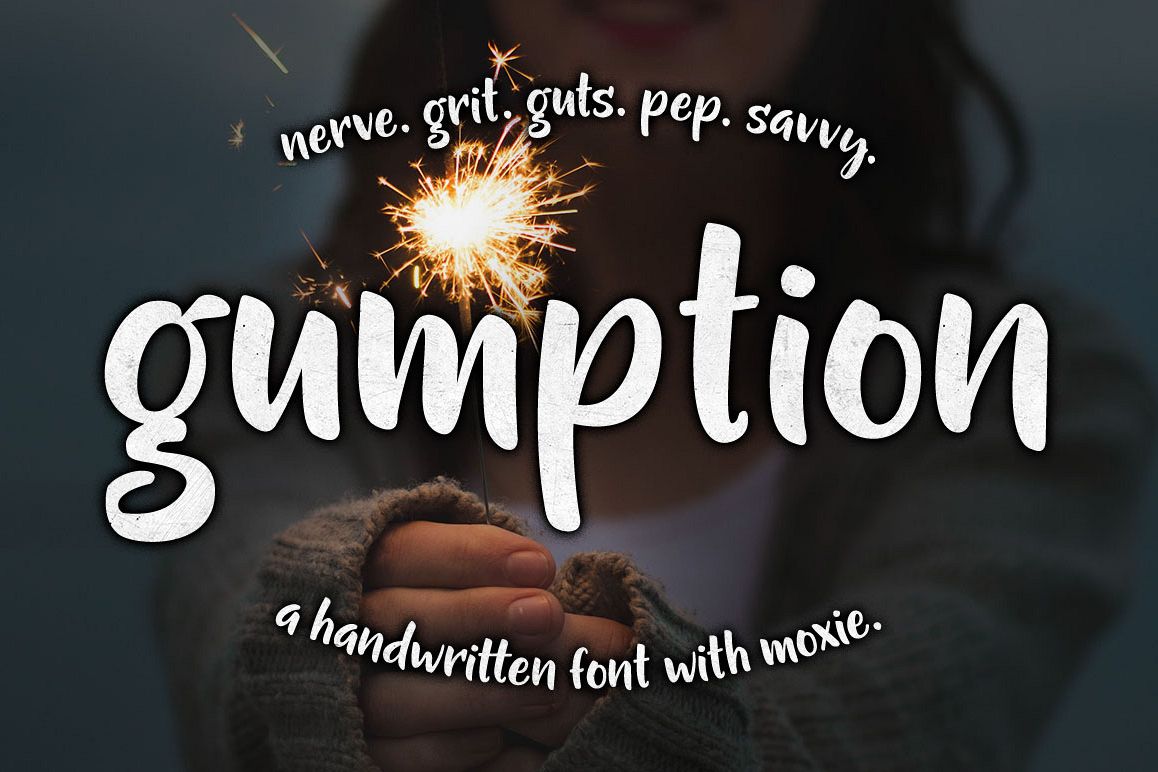
Gumption
Looking for a hand-written look that isn't too froofy? Why not give Gumption a try?
Gumption was hand-crafted with paper and pen, then extensively cleaned up to have smooth curves and lines, while maintaining the flair of brush script handwriting.
Gumption features:
• 400 glyphs
• Uppercase and lowercase double-letter ligatures for 15 letters: B, C, D, E, F, G, L, M, N, O, P, R, S, T, and Z (both coded into the main file, and separated out into their own file)
• Over 200 accented characters to support: English, French, Spanish, German, Polish, Romanian, Portuguese, Swedish, Finnish, Norwegian, Danish, Esperanto, Czech, Dutch, Welsh, Filipino, Turkish, and more
• 25 assorted dingbats in the same hand (both included in the main file, and separated out into their own file)
• All alternates and dingbats PUA-encoded for easy character map access